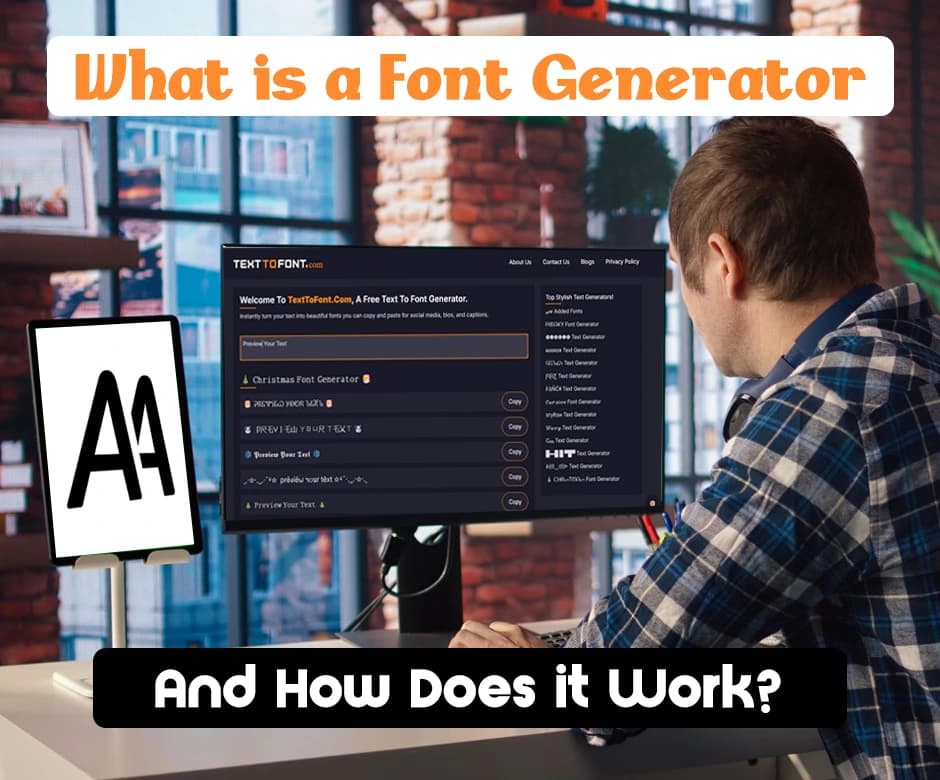
Fonts play a huge role in making your text stand out and catch attention online these days. This is where font generators come into play. A font generator is a simple yet powerful tool that transforms regular text into eye-catching, stylized versions using symbols, special characters, and emoticons.
Commonly used on social media, messaging apps, and gaming platforms, these tools help users express personality and creativity without installing actual fonts.
In this article, we’ll explore what a font generator is, how it works behind the scenes, and why it has become so popular.
A font generator is an online tool that converts standard text into visually styled text formats that resemble different fonts. Instead of creating or installing actual font files, these generators transform each character into a corresponding Unicode symbol that looks bold, cursive, decorative, or artistic.
The result is text that can be copied and pasted across various platforms, including social media, messaging apps, and websites.
This type of letter generator is especially popular because they work in places where traditional font customization isn’t allowed.
By using special characters, symbols, and sometimes emoticons, they give users an easy way to personalize text, create unique usernames, or add visual flair to digital content without any design skills or software.
Font generators are designed to make text customization quick, creative, and accessible for everyone. Their features focus on simplicity, flexibility, and visual appeal, allowing users to transform plain text into eye-catching styles in just a few seconds.
A key feature of this tool is the wide variety of font styles it offers from a single text input. Users can instantly choose from dozens of styles such as bold, italic, cursive, handwritten, gothic, bubble, serif, and glitch text.
This variety allows users to experiment with different looks and select the style that best fits their purpose, whether it’s a social media bio, a username, or a decorative message.
Another useful feature of this tool is its simplicity. Most tools require users to simply type or paste text into an input box, after which multiple stylized versions are generated instantly. No technical knowledge, design experience, or setup process is required, making font generators accessible to everyone.
These tools are typically web-based tools that work directly in a browser. This means users don’t need to download software or install font files. As long as there is an internet connection, the tool can be accessed instantly, saving time and device storage.
A single input can produce dozens of font-style variations, including bold, italic, cursive, gothic, bubble, and glitch text. These styles are created using Unicode characters, allowing the text to visually resemble different fonts without actually changing the font itself.
Many tools enhance text by adding emoticons, emojis, and decorative symbols such as hearts, stars, arrows, and faces. These elements help make text more expressive and visually engaging, especially for social media bios, captions, and usernames.
It can be used on desktops, laptops, tablets, and smartphones. Since the generated text is Unicode-based, it remains consistent across different operating systems, including Windows, macOS, Android, and iOS.
Once the text is generated, it can be easily copied and pasted into social media platforms, chat apps, games, and websites. This flexibility is one of the main reasons these tools are so widely used.
Most tools are designed to produce text that works on popular platforms like Instagram, TikTok, Twitter, Discord, and gaming networks. While not every style is supported everywhere, many generators focus on compatibility to ensure the text displays correctly.
The majority of font generators are free to use and don’t require account registration. This makes them a convenient option for users who want quick, creative text without financial or technical barriers.
At first glance, a font generator may seem like it’s creating new fonts, but the process works quite differently behind the scenes.
Instead of changing the actual font file, these tools rely on character substitution, Unicode standards, and text manipulation techniques to create stylized text that can be used almost anywhere.
Unicode is a universal character encoding system that assigns a unique code to every character, symbol, and letter across different languages and platforms.
The tool take advantage of this system by using Unicode characters that visually resemble stylized letters, such as bold, cursive, or decorative forms. Because Unicode is widely supported, the generated text appears consistently across most devices and applications.
When a user enters text into a font generator, the tool processes it one character at a time. Each standard letter, number, or symbol is mapped to a corresponding Unicode alternative from a predefined style set.
For example, a normal “A” may be replaced with a bold or script-style Unicode version, while keeping the original meaning of the text intact.
It relies on built-in libraries that contain multiple sets of stylized Unicode characters. Each library represents a different font style, such as cursive, gothic, or monospace.
The generator applies these libraries to the input text, instantly producing multiple variations that users can preview and select from.
To enhance visual appeal, many tools insert decorative symbols, emojis, or emoticons alongside text. These elements are also Unicode-based and are either appended to the text or integrated between characters, allowing for creative designs without affecting compatibility.
Once the text is generated, it can be copied and pasted like regular text. Since the output consists of standard Unicode characters rather than images or font files, it works across social media platforms, chat apps, websites, and games without requiring any additional setup.
Font generator results are visually similar to real fonts, but they function in a very different way. Real fonts are complete font files (such as TTF or OTF) that are installed on a device and applied through design software or system settings.
In contrast, cool font generator do not create or apply actual fonts. Instead, they replace standard letters with Unicode characters that already exist within the system. This means the generated text behaves like regular text and can be copied and pasted anywhere, but it cannot be edited or scaled like a true font in professional design tools.
While font generators are ideal for quick styling and online use, real fonts are better suited for branding, printing, and advanced typography control.
Converting text into stylized fonts has become a lot easier with Text to Font. It is a free tool that can help you convert fonts within a matter of seconds. Here’s how to do it:
First of all, open the official website of Text to Font.
Now, input your normal text in the designated box.
The tool will instantly convert your plain text into multiple stylish fonts.
You can then copy any font that you like and use it wherever you want to.
Using a font generator is simple, but following a few tips can help you create more effective and visually appealing text. Here are some useful suggestions:
Choose Readable Styles: While decorative fonts look fun, make sure your text remains easy to read, especially for bios, messages, or professional posts.
Mix Styles Sparingly: Combining multiple font styles or symbols can be visually striking, but overdoing it can make your text cluttered or confusing.
Consider Platform Compatibility: Test your generated text on the platform where it will be used, as some Unicode characters may not display correctly everywhere.
Use Symbols and Emojis Thoughtfully: Adding emojis or special symbols can enhance style, but excessive use may distract from your main message.
Using a font generator offers several advantages, especially for users who want quick and creative text styling without technical effort. Some of the key benefits include:
Instant Text Transformation: Users can quickly turn plain text into visually appealing styles within seconds, without any learning curve.
Creative Freedom: Thes tools encourage experimentation by allowing users to try multiple styles and decorative variations from a single input.
No Technical Barriers: There’s no need to understand typography, coding, or design principles to achieve stylish results.
Consistent Results Across Devices: The generated text remains usable on different devices and operating systems without additional adjustments.
Ideal for Platforms with Limited Styling Options: Font generators help bypass text-formatting limitations on social media bios, usernames, and chat platforms.
Enhanced Personal Expression: Adding symbols, emoticons, and unique text styles helps users reflect personality and tone more effectively.
When using a font generator, it’s important to keep a few factors in mind to ensure the best experience and avoid potential issues. Here are the key considerations:
Platform Compatibility: Not all stylized text works on every app or device. Test your generated text to ensure it displays correctly where you plan to use it.
Readability: Some decorative styles or excessive symbols can make text hard to read. Use stylized text selectively to maintain clarity.
Accessibility: Screen readers and assistive technologies may not recognize Unicode symbols properly, which can affect accessibility for some users.
Safety and Privacy: Always use trusted font generator websites. Avoid entering sensitive information, as some unreliable tools may store or misuse data.
Overuse Can Look Unprofessional: While fun and creative, excessive use of stylized fonts in professional settings can appear informal or distracting.
These tools are versatile that cater to a wide range of users. Whether for personal expression, professional use, or entertainment, these tools make stylized text accessible to anyone. Here’s a closer look at the different types of users who can benefit from font generators:
People active on platforms like Instagram, TikTok, Twitter, and Facebook use these tools to make their bios, captions, and posts stand out. Unique text styles help attract attention, create a personal brand, and express creativity in a crowded digital space.
Font generators are popular among gamers for creating distinctive gaming usernames, clan tags, or chat messages. Stylized text and symbols make profiles more memorable and help users stand out in gaming communities and forums.
YouTubers, bloggers, and other content creators use it to add visual flair to titles, captions, and graphics. Eye-catching text can enhance engagement, improve readability, and make content more appealing to audiences.
Students and educators can use it for presentations, projects, and assignments. Decorative or stylized text can make educational materials more engaging and visually interesting.
Small businesses, marketers, and brand managers can leverage the tool for social media posts, promotional content, or informal branding. While not a replacement for professional typography, it offers a quick way to enhance visual appeal online.
Font generators are powerful yet simple tools that allow anyone to transform plain text into creative, stylized versions instantly. By leveraging Unicode characters, symbols, and emoticons, they make text visually appealing across social media, messaging apps, and gaming platforms without requiring design skills or software.
Ideal for personal expression, branding, or casual use, font generators provide a quick, accessible, and fun way to enhance digital communication and make your text stand out.
Yes, most tools are completely free and do not require any registration. Some may offer premium styles, but basic functionality is accessible to everyone.
It works on most popular platforms like Instagram, TikTok, Twitter, and Facebook. However, some special Unicode characters may not display correctly on every app or device.
No, these tools are usually web-based tools that run directly in your browser. This means you can use them on any device without downloading software.
The generated text behaves like normal text, so you can copy and paste it anywhere. However, you cannot change its style after it’s generated unless you use the generator again.
Yes, most reputable tools are safe, as they only transform text and do not install files on your device. It’s still recommended to use trusted websites and avoid sharing sensitive information.